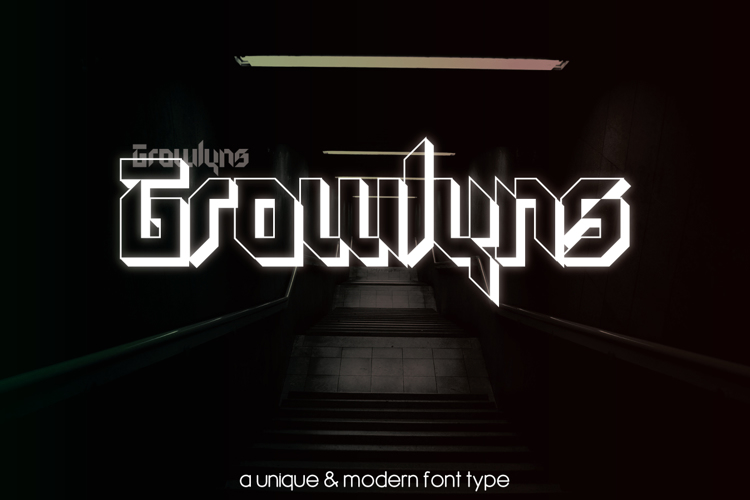
Growlyns Font
Growlyns is unique and modern font which is very easy to use for various designs. Growlyns comes in a 3D, bold and regular style. If you want in full version, click link below: